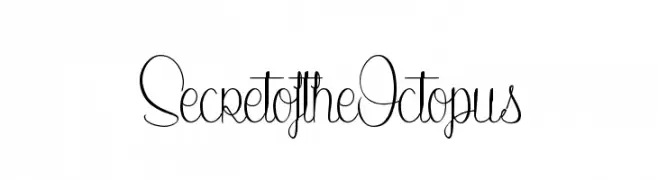
( Fonts by Lapiah Tigo )
An ornate and decorative typeface with intricate swirls and lattice-like patterns.
( Fonts by Leonard Posavec )
An ornate and decorative font with elaborate swirls and flourishes.
( Fonts by Januar Maulana )
A decorative and intricate font with swirling, organic shapes.
An elegant script font with intricate swirls and a modern calligraphic style.
( Fonts by Bleakerst )
A whimsical cursive font with playful loops and swirls.
An ornate and decorative font with intricate swirls and flourishes.